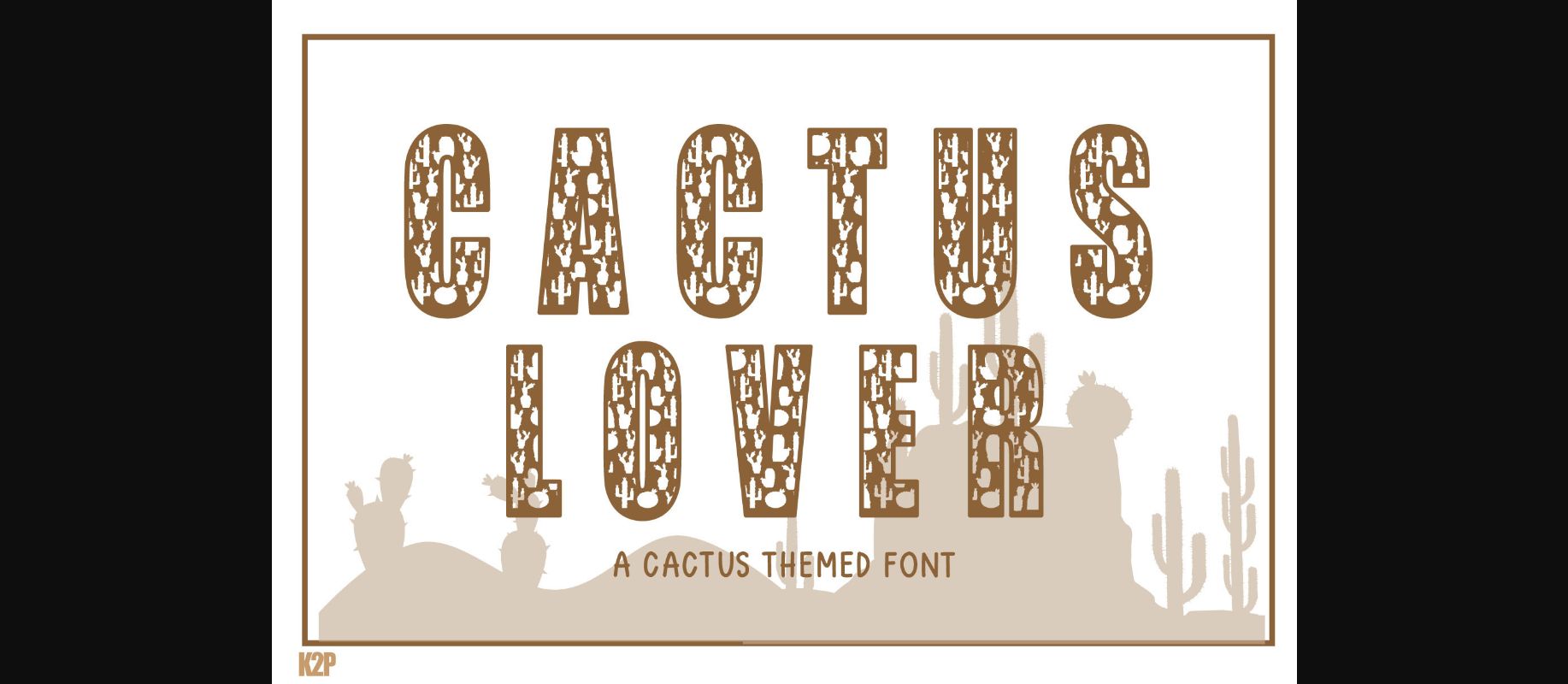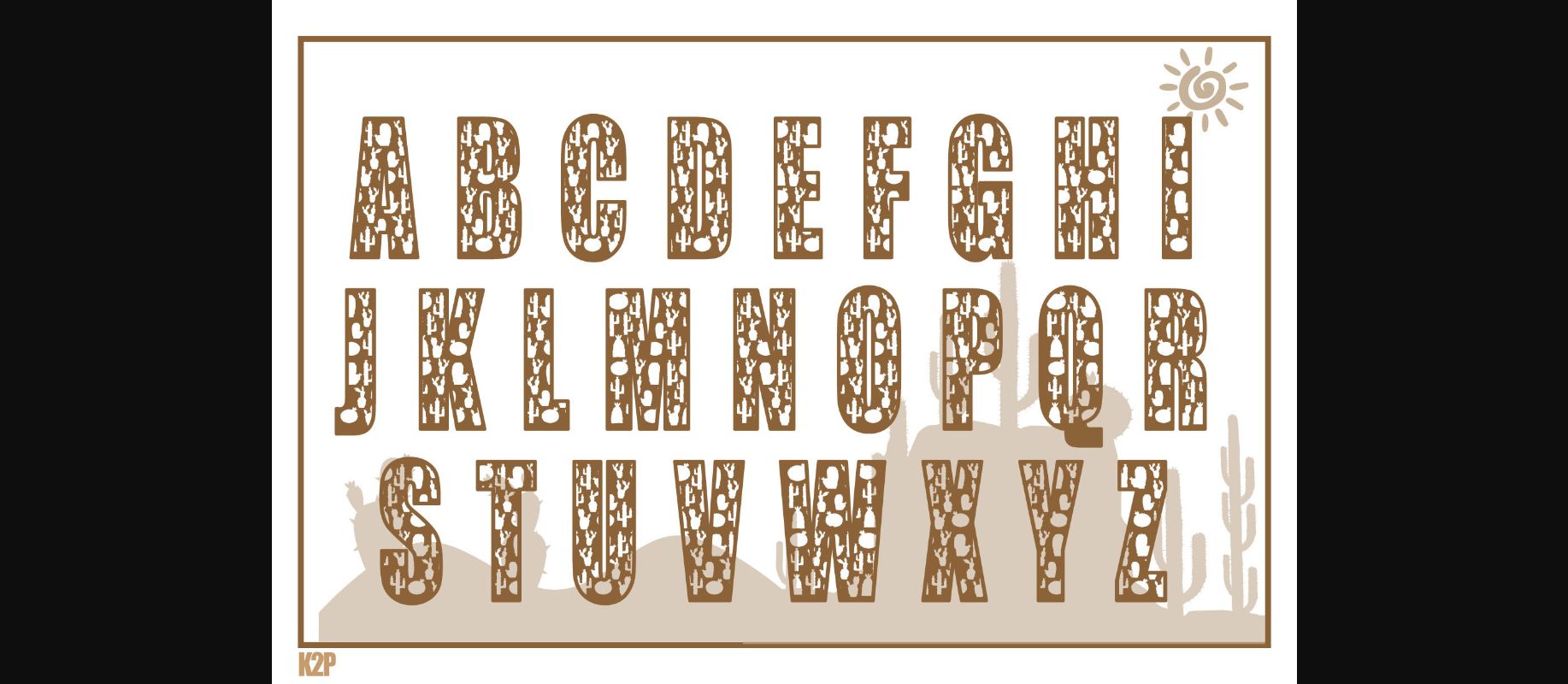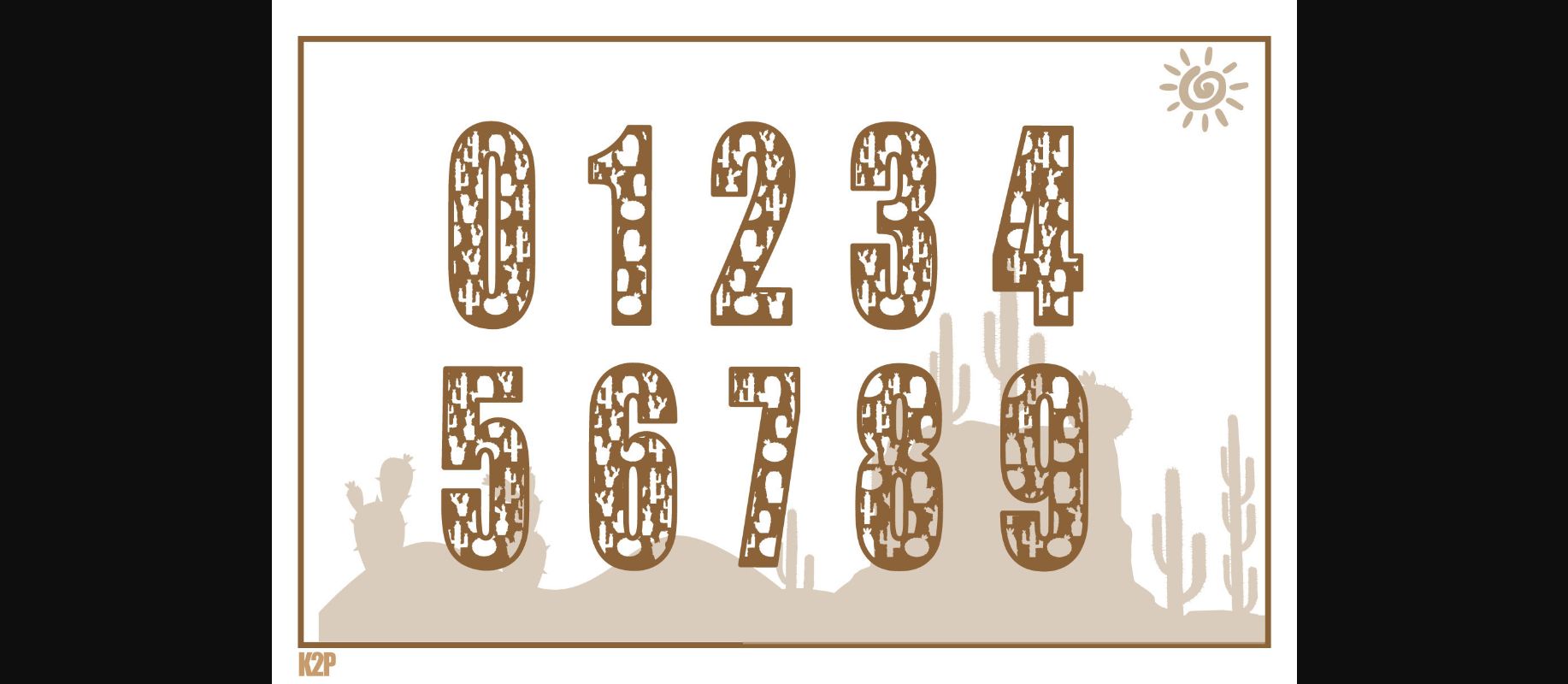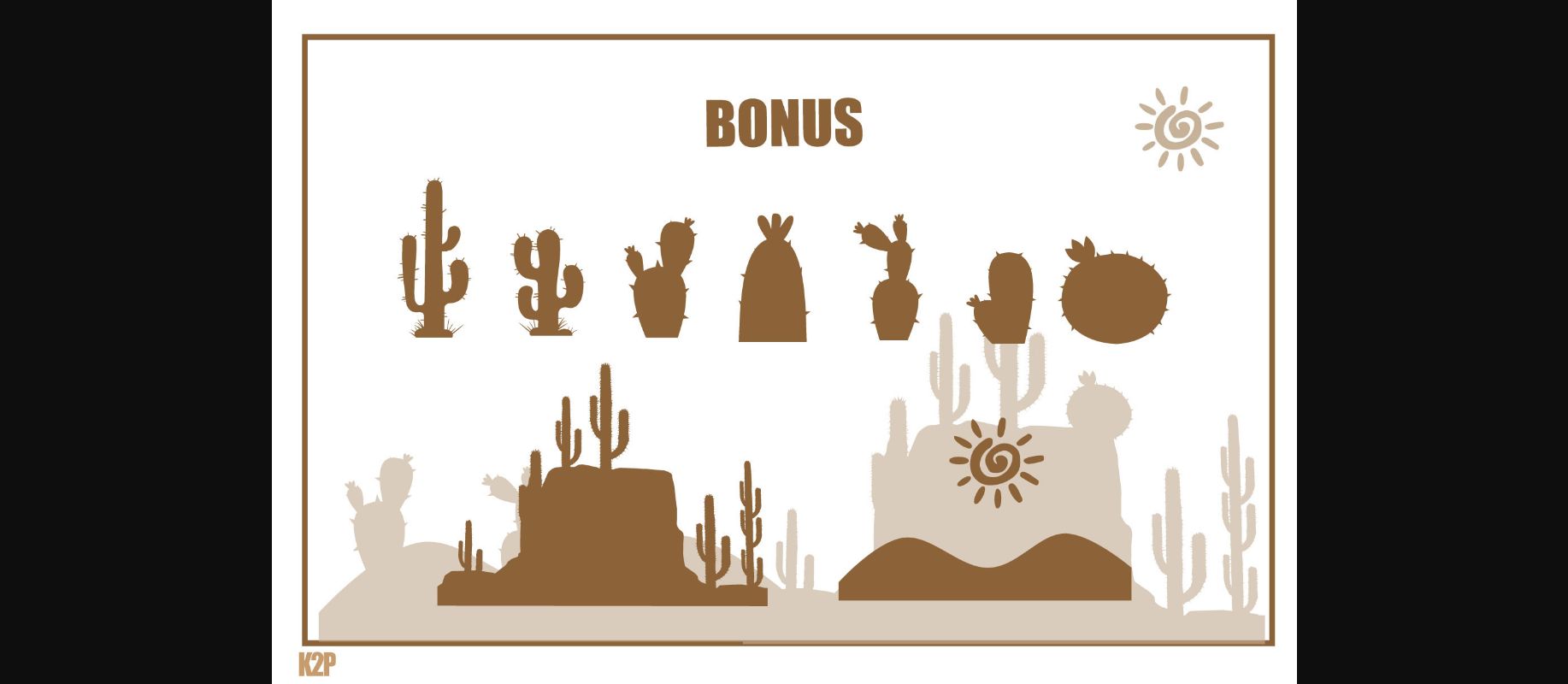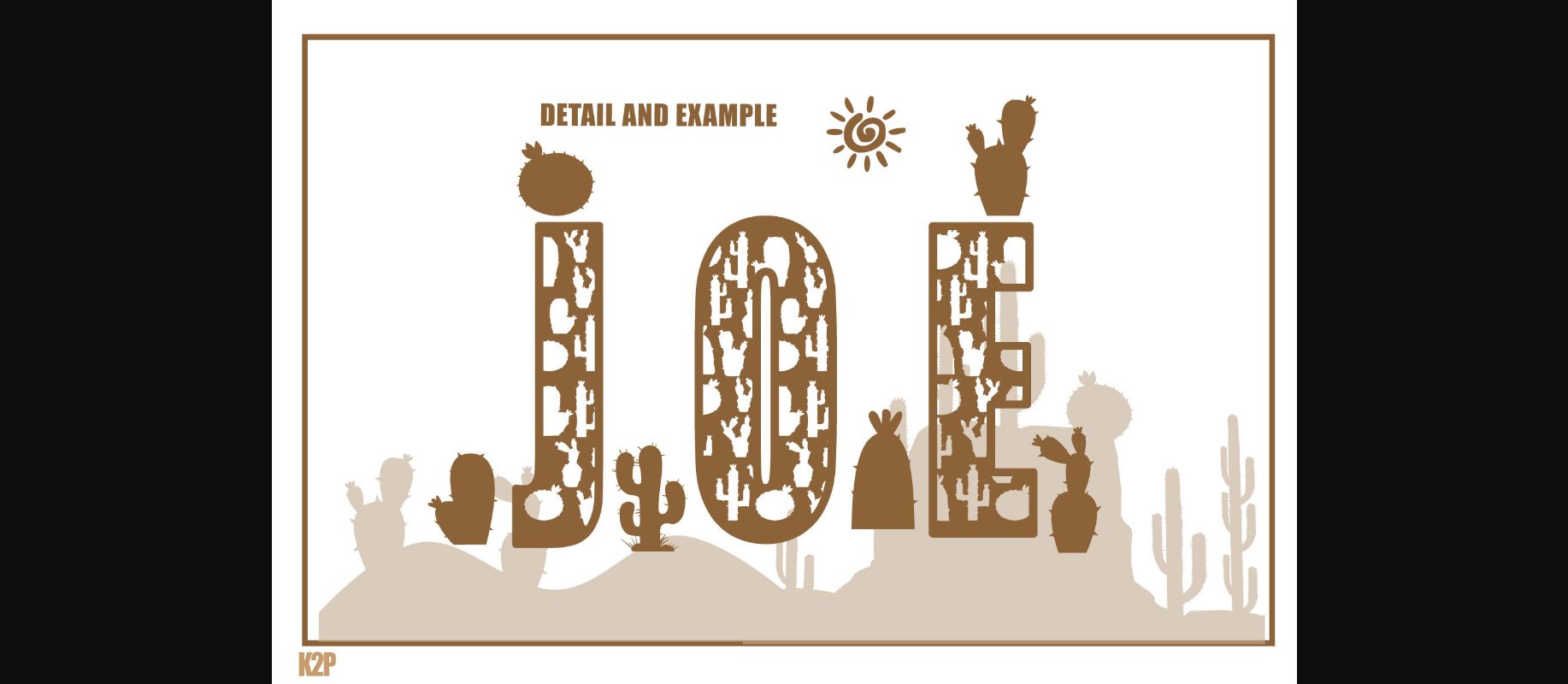
Cactus Lover Font
About Cactus Lover Font
Cactus Lover is a cool and highly detailed decorative font. Whatever the topic, this font will be a wonderful asset to your font library, as it has the potential to enhance any creation.